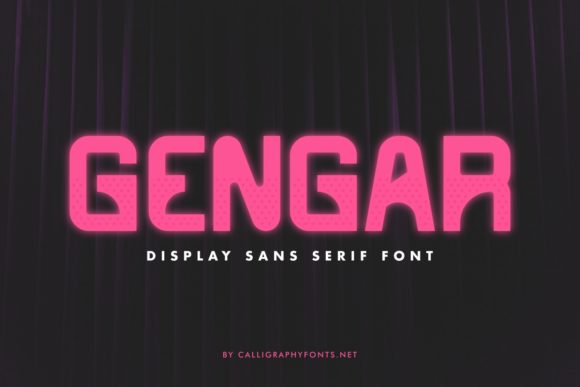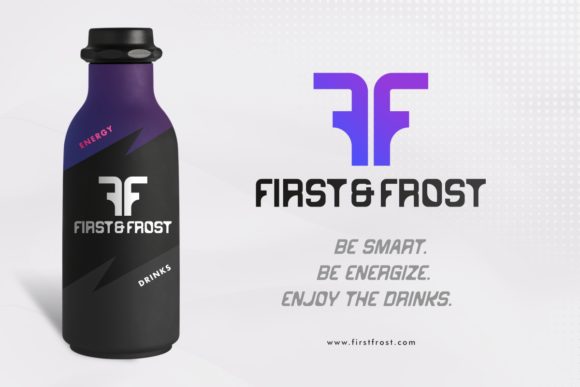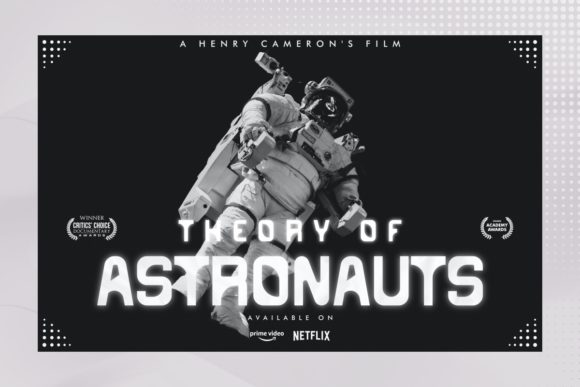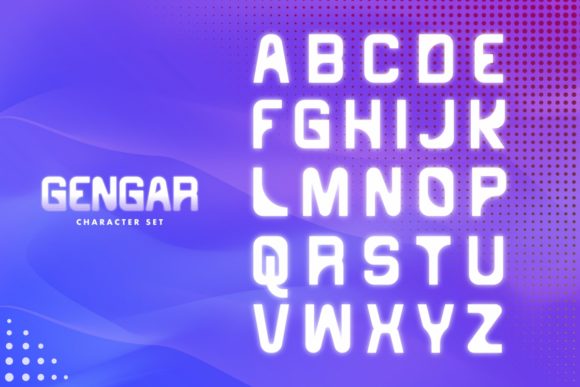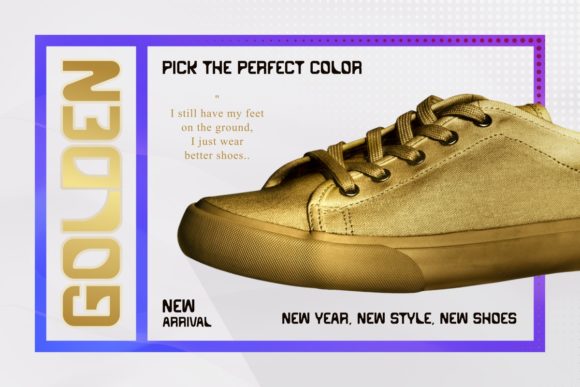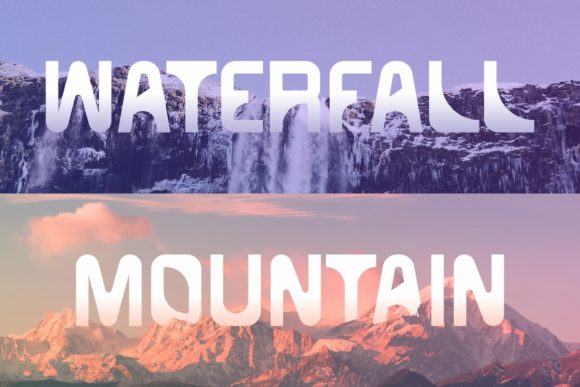
The Elusive Font: My Journey with Gengar Font
I still remember the project like it was yesterday. I was working on a futuristic-themed flyer for a tech conference, and I was determined to find the perfect font to capture the essence of innovation and cutting-edge technology. Hours turned into days, and days into weeks, as I scrolled through font after font, but nothing seemed quite right. That was until I stumbled upon Gengar Font. It was as if the design gods had finally smiled upon me, and I knew I had found the one.
First Impressions: A Love Affair with Gengar Font
Gengar Font is a display sans serif font that exudes a unique, futuristic style. Its sleek lines and geometric shapes make it an eye-catching element that’s perfect for headers, logos, monograms, and more. Here’s what I love about it:
- ✨ Unique and futuristic design that’s sure to turn heads
- 💻 Works well on both digital and print platforms
- 🎨 Highly versatile, perfect for a wide range of design projects
The Not-So-Perfect Font: A Few Quirks
While Gengar Font is an amazing addition to any design project, it’s not without its limitations. Here are a few things to keep in mind:
- 🤔 Limited support for non-English characters, so make sure to check the font’s compatibility before use
- ⚠️ May not work well with body text, as it’s primarily designed for display purposes
The Story Behind Gengar Font
While the true origins of Gengar Font are shrouded in mystery, it’s said to have been inspired by the works of a renowned type designer who was fascinated by futuristic themes and sci-fi aesthetics. The font’s unique design is a testament to the power of creative experimentation and innovation.
| Font Name | Gengar Font |
| Author | CalligraphyFonts |
| What is Gengar Font best used for? | Gengar Font is perfect for display purposes, such as headers, logos, monograms, and eye-catching elements in flyers and posters. |
| Is Gengar Font suitable for body text? | No, Gengar Font is primarily designed for display purposes and may not work well with body text. |